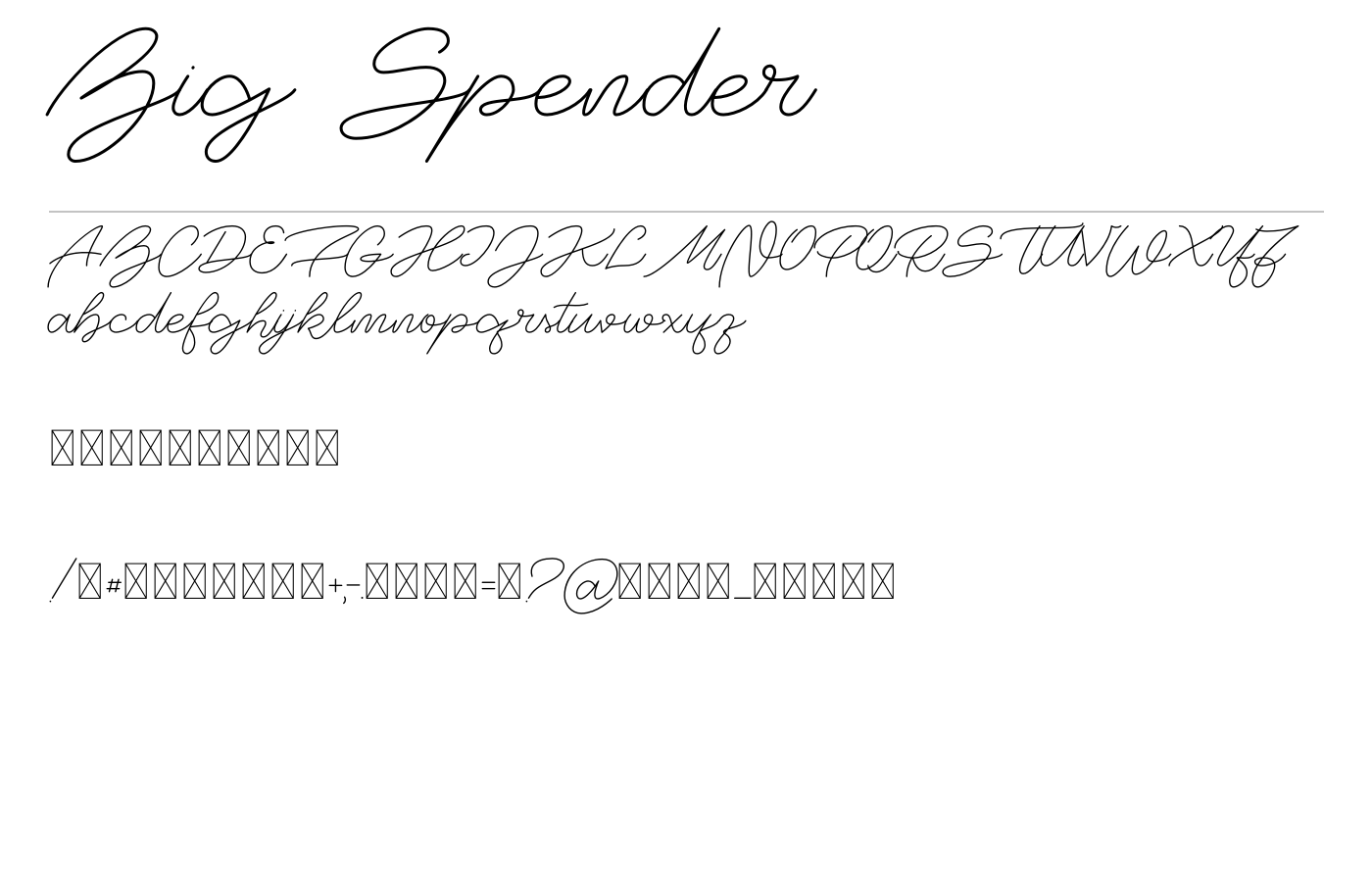
Big Spender is a delicate, elegant script font characterized by its thin, flowing strokes and refined, handwritten style. Its light weight and graceful letterforms give it a sophisticated and personal feel, making it perfect for luxury branding, invitations, and feminine design projects where a touch of classy intimacy is desired. This font works best in display settings such as logos and headlines, where its elegant curves can shine without losing legibility.
Big Spender Font
About Big Spender Font